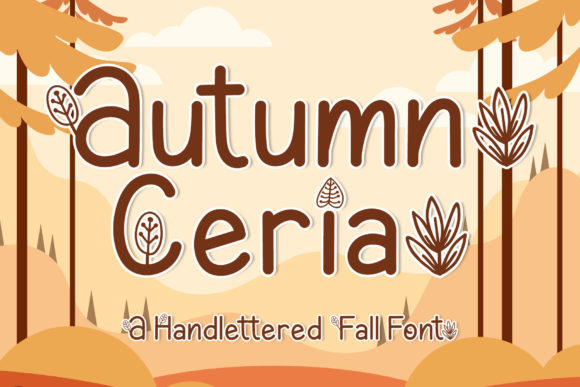
The Magic of Autumn Ceria Font: A Designer’s New Best Friend
I’ll never forget the time I was working on a project for a client who wanted a warm, cozy feel to their branding. I had spent hours scouring the internet for the perfect font, but nothing seemed quite right. That was until I stumbled upon Autumn Ceria Font. It was like a breath of fresh air – simple, adaptable, and full of character. In this article, I’ll share my experience with Autumn Ceria Font, and show you how to make the most of this beautiful handwritten font.
An Honest Review of Autumn Ceria Font
So, what makes Autumn Ceria Font so special? Let’s dive into the good stuff and a few quirks I’ve discovered.
- ✅ Simple and Adaptable: Autumn Ceria Font is a versatile font that works beautifully in a variety of contexts, from headings to body text.
- 💫 Handwritten Charm: This font has a lovely, human touch that adds warmth and personality to any design.
While Autumn Ceria Font is an excellent choice, there are a few things to keep in mind:
- ⚠️ Limited Multilingual Support: While Autumn Ceria Font covers the basics, it may not support every language or character set.
- 🤔 Some Swashes May Overlap: Be mindful of swashes and ligatures, as they may overlap or interact in unexpected ways.
A Practical Guide to Using Autumn Ceria Font
The Story Behind Autumn Ceria Font
Imagine a designer, inspired by the warmth and coziness of autumn, sitting down to create a font that captures the essence of the season. With a passion for typography and a love for handwritten fonts, they carefully crafted Autumn Ceria Font to be simple, adaptable, and full of character. And so, this beautiful font was born.
| Font Name | Autumn Ceria Font |
| Author | AEN Creative Studio |
| Is Autumn Ceria Font suitable for body text? | While Autumn Ceria Font can be used for body text, it’s primarily designed for headings and titles, where its unique character can shine. |